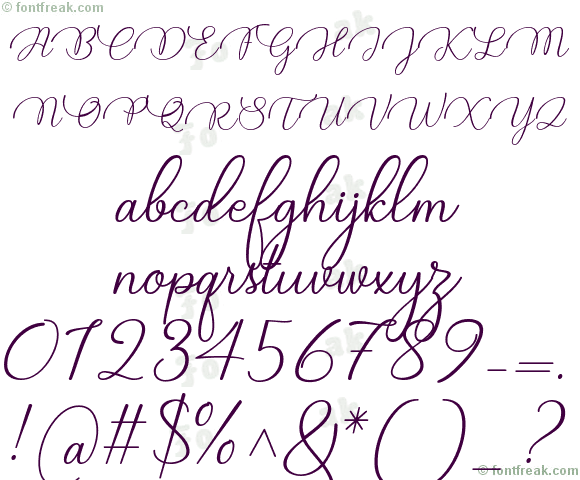
Candire
About Candire
Candire, designed by Situjuh Nazara in 2018, is a captivating display font that embodies elegance and creativity. As a script typeface, it features fluid, cursive letterforms that convey a sense of warmth and personal touch. The font's visual characteristics include a moderate stroke weight that strikes a balance between legibility and artistic flair, with subtle contrast that enhances its graceful curves. The spacing is thoughtfully designed to ensure readability while maintaining an inviting flow, making it suitable for both digital and print applications.
Candire is ideal for a variety of use cases, including wedding invitations that require a touch of sophistication, movie posters where dramatic flair is essential, and restaurant menus that aim to create an inviting atmosphere. Additionally, the font can be effectively utilized in branding materials for small businesses seeking a unique identity, as well as in social media graphics for content creators looking to capture their audience's attention.
The target audience for Candire includes graphic designers who appreciate the nuances of typography, small business owners in the hospitality or creative industries, and content creators who strive to elevate their visual storytelling. This font serves as a versatile tool for those who want to make a memorable impression.
What sets Candire apart is its ability to blend elegance with approachability. Its unique form and artistic flair allow it to stand out in a crowded market, making it a perfect choice for anyone looking to enhance their designs with a distinctive touch. With the added benefit of being freeware, users can easily access this beautiful font for their projects. Don’t miss the opportunity for a Candire font free download to elevate your next creative endeavor.